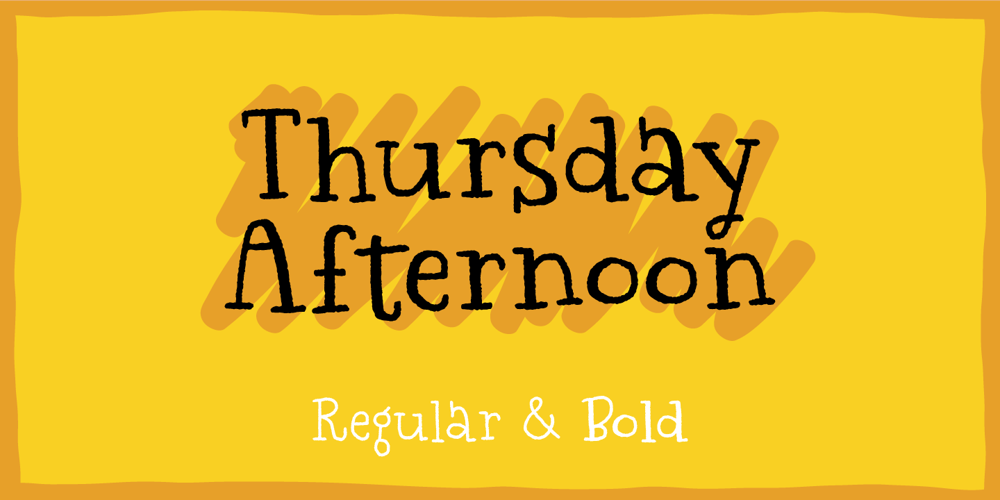
Thursday Afternoon Font Family was designed by Jakob Fischer and published by Bogstav. Thursday Afternoon contains 4 styles and family package options. Nothing is as it really should be with Thursday Afternoon. The x-height is jumpy, letters are not in their right places, lines are crunchy, serifs are uneven…the list goes on…but in the end, Thursday Afternoon turns out as a legible and functional font. It has most of the moves from classic serif fonts, but then again it has a mind of its own!